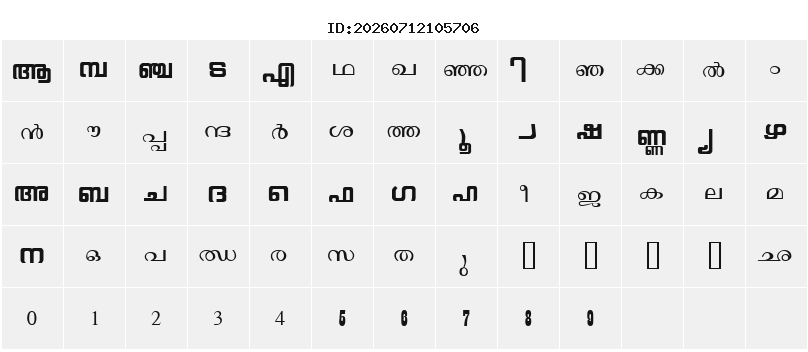
Malyalam Vijay Demo Preview
• Font Name: Malyalam Vijay Demo
• Full Font Name: Malyalam Vijay Demo
About Malyalam Vijay Demo.ttf
Malyalam Vijay Demo.ttf is a modern, elegant sans-serif font designed for ultimate readability and visual harmony. Perfect for branding, headlines, web design, and print materials.